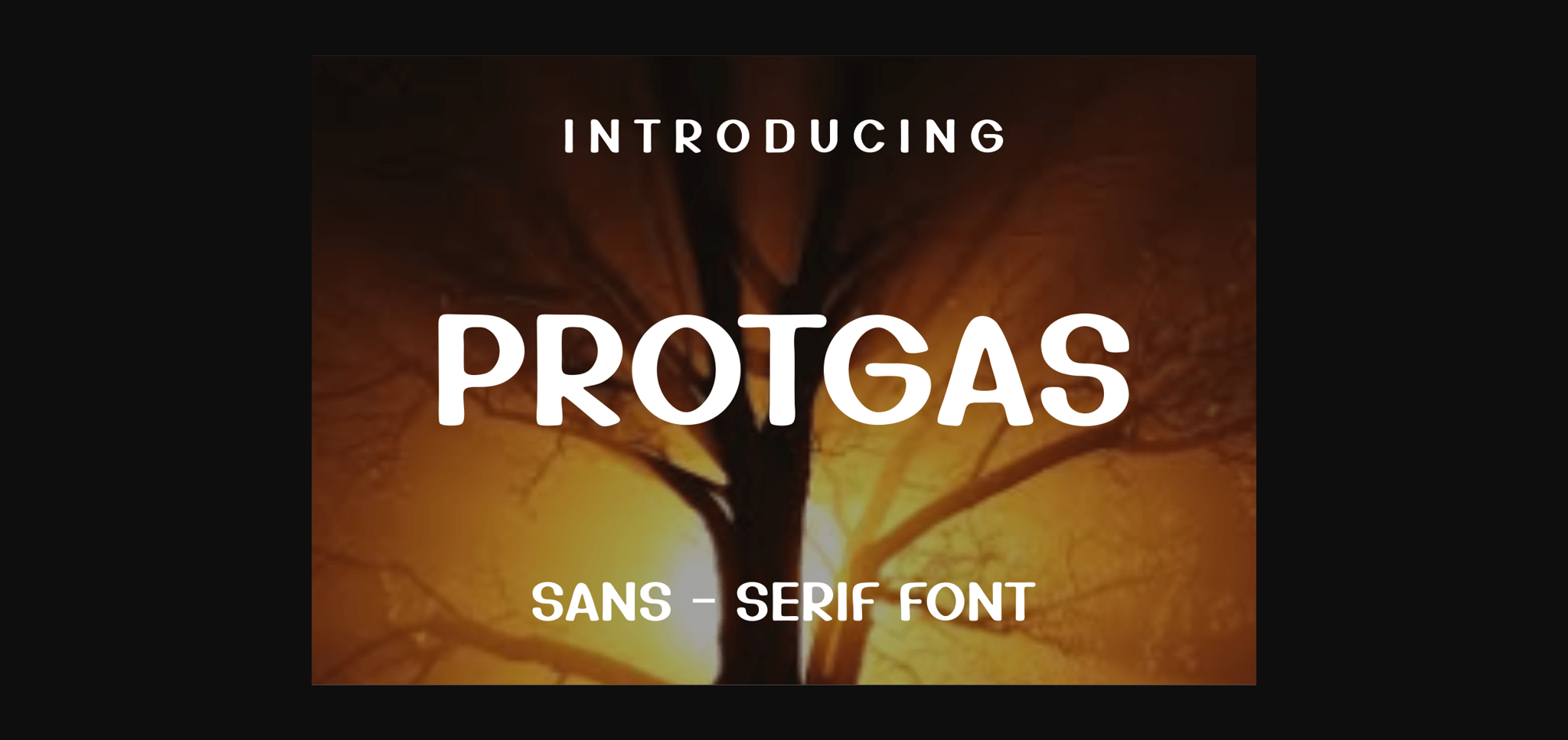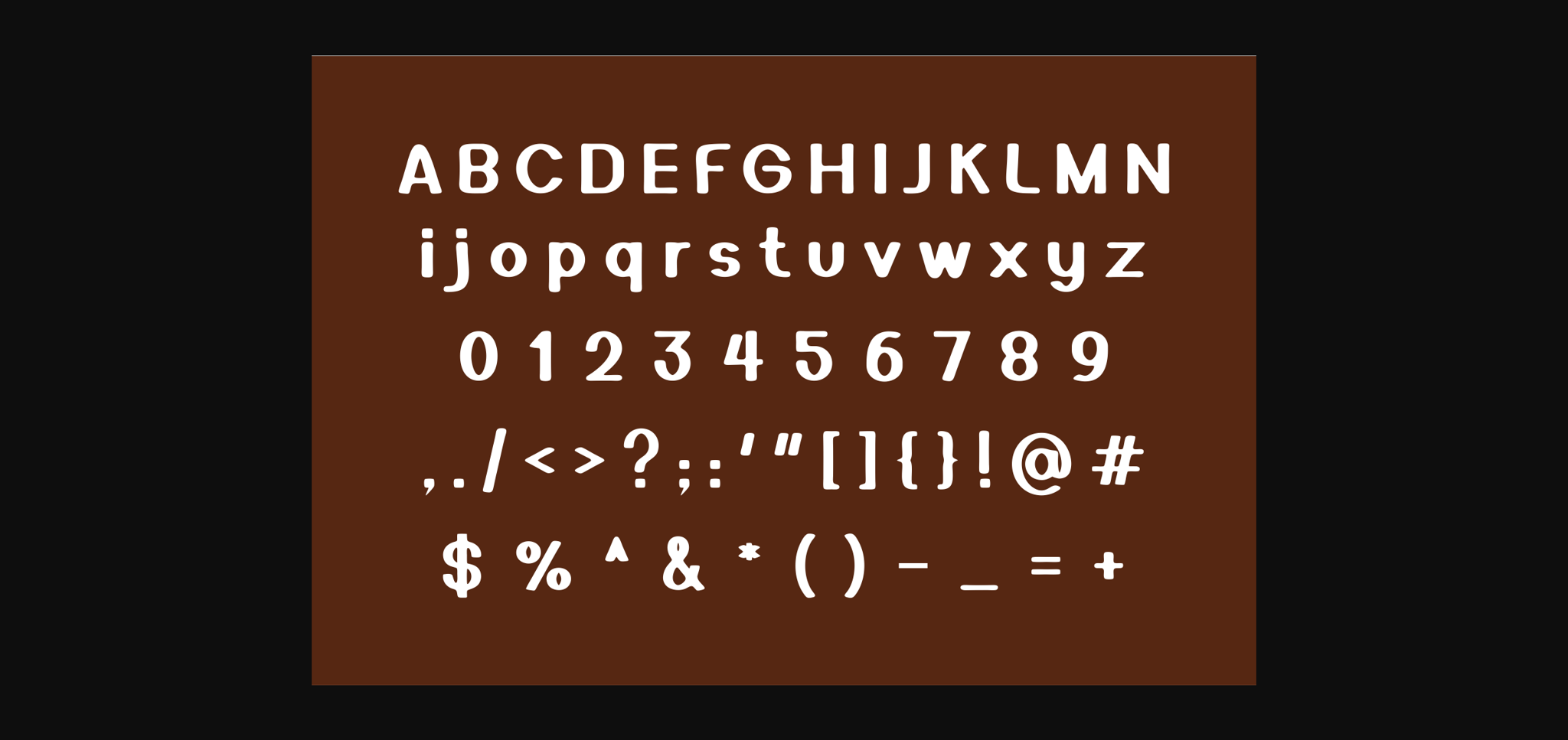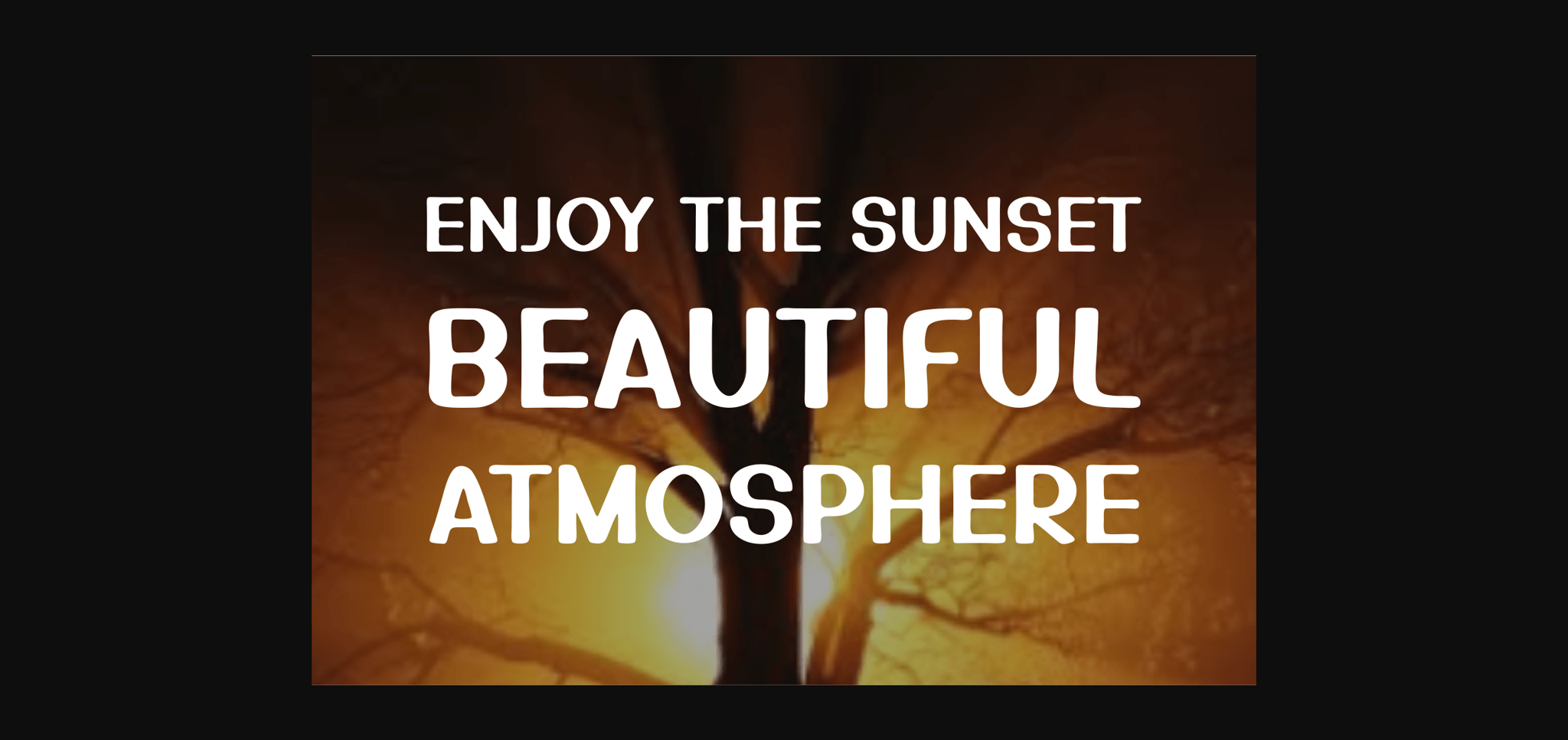
Protgas Font
About Protgas Font
Protgas is a modern and smooth sans serif font. Not too thin and not too thick, balanced and varied, this font was designed to enhance the beauty of your projects.